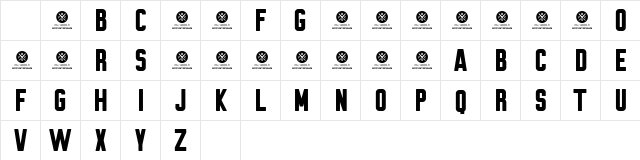
Complete Brewmaster Gothic Round Regular glyph index. Displaying only characters natively supported by Brewmaster Gothic Round Regular font.
Brewmaster Gothic Round takes a clean, functional approach - its unadorned letterforms prioritise legibility and work reliably across screen and print environments.
Font Pairing: Works well alongside a characterful serif or display font that can carry the expressive load while Brewmaster Gothic Round handles the functional copy.
Pro Tip: Use Brewmaster Gothic Round for UI labels, navigation, and short-form body copy where clean legibility is the priority.